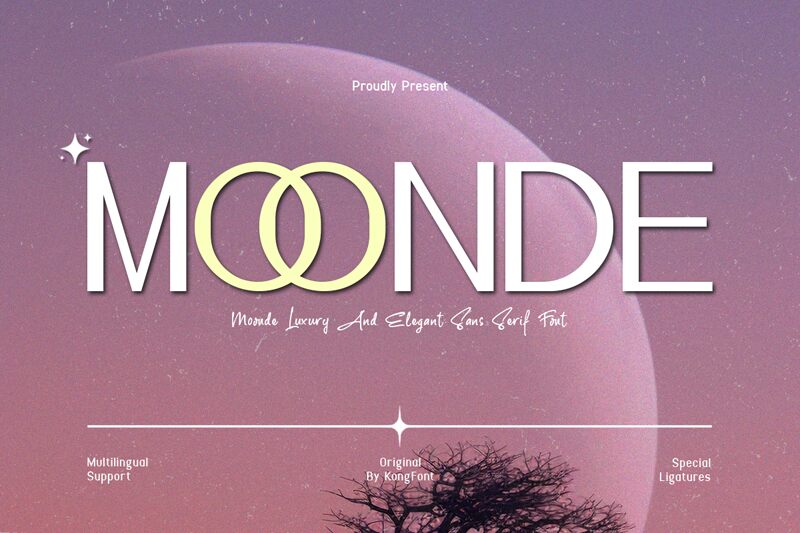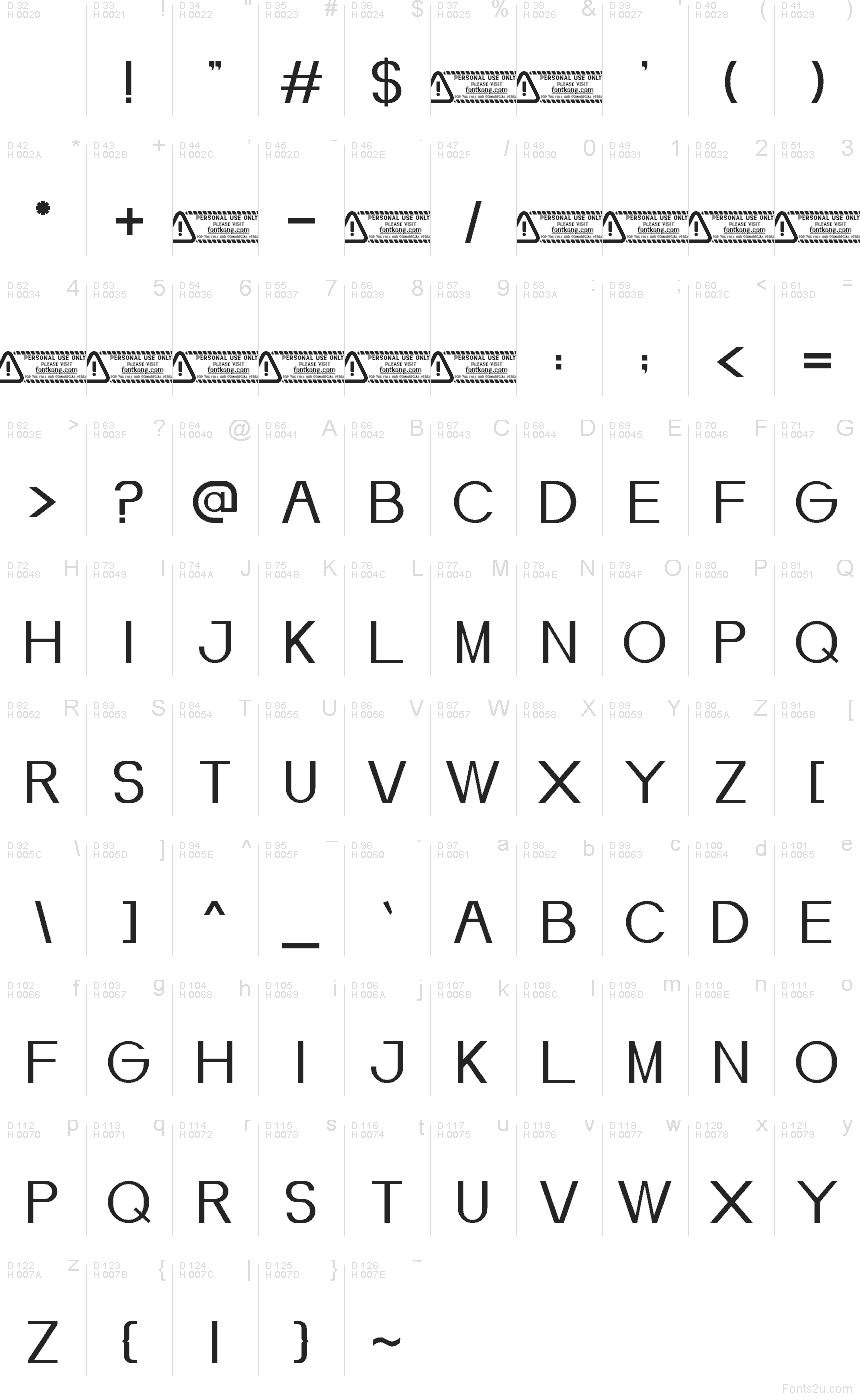
Moonde font by Kong Font is a free modern sans serif typeface with an ultra-sleek, weightless feel. Its tall, narrow letters and glass-thin strokes create an airy, futuristic rhythm, while the rounded forms echo glowing moons and soft neon rings. The result is a crisp, minimal wordmark style that feels luxurious without trying too hard.
Using Moonde, headlines and logos instantly take on a high-end, fashion-forward attitude—think beauty brands, magazines, posters, album covers, tech startups, and sleek packaging. This free font shines at large sizes where its fine lines stay sharp and elegant. For longer text, pair Moonde with a simple grotesk or humanist sans to keep things readable while letting Moonde handle the spotlight moments.